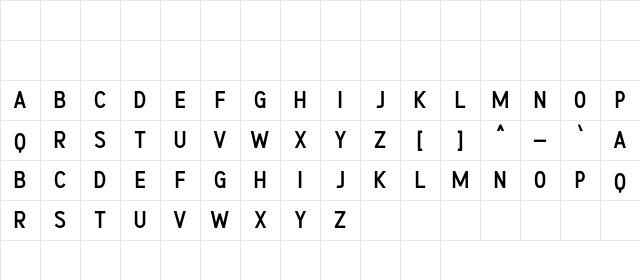
Kenzoestic is a composed and adaptable typeface that performs quietly and consistently across a wide range of design contexts.
Pro Tip: Use Kenzoestic in both headline and body roles to test its range before committing to a single application.